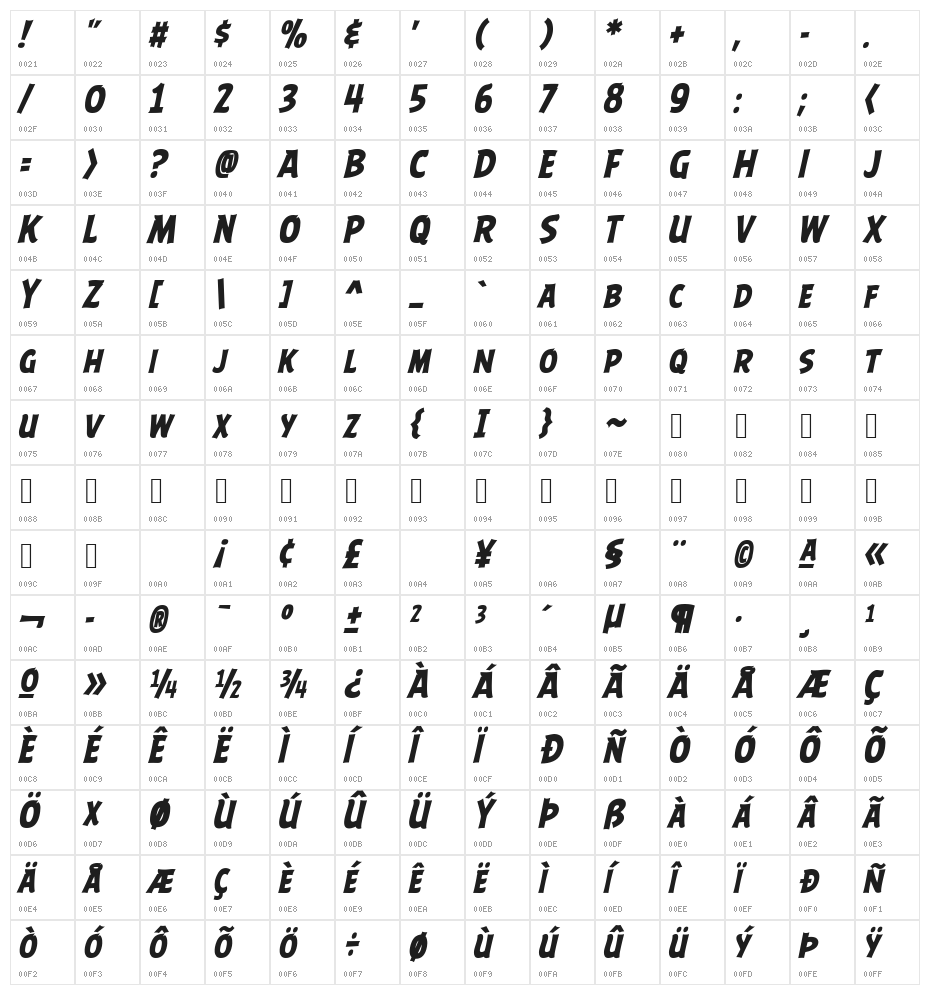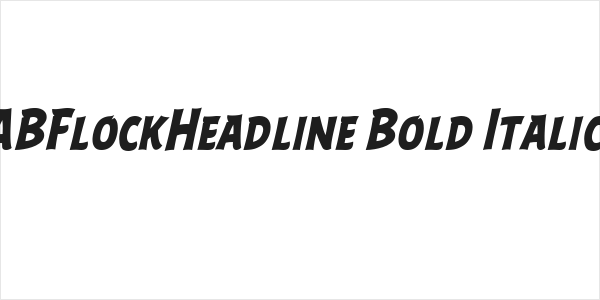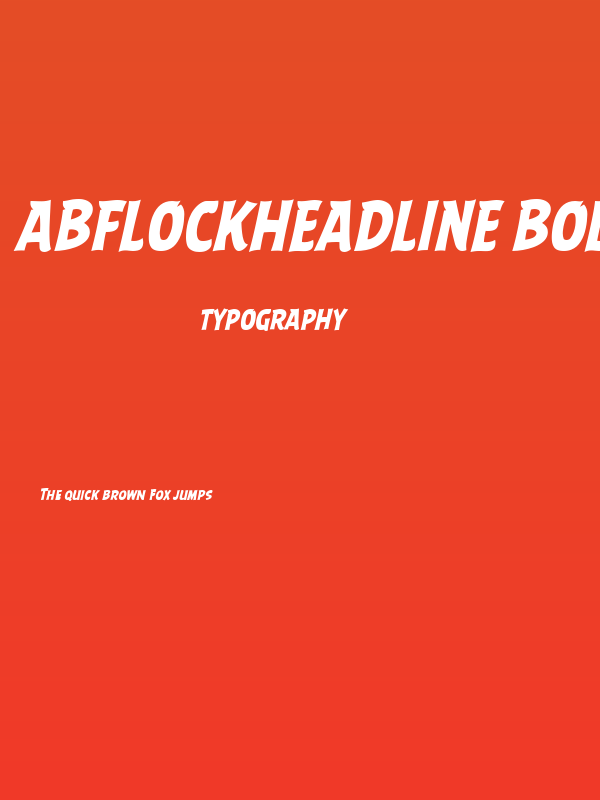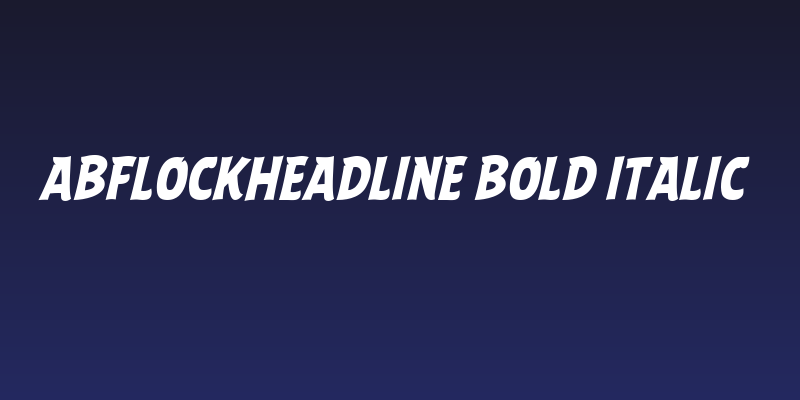
ABFlockHeadline Bold Italic Font
ABFlockHeadline Bold Italic Description
This font features a bold and italicized style with a strong, dynamic presence. The characters are slightly slanted, adding a sense of motion and energy. The strokes are thick and consistent, providing a robust and impactful appearance. The overall design is modern and eye-catching, making it suitable for attention-grabbing headlines and titles. The spacing between characters is tight, enhancing the compact and cohesive look of the text. The font includes a full set of uppercase and lowercase letters, numbers, and a variety of special characters, offering versatility for different design needs.
| Proposed Projects | Ideal for headlines, posters, branding materials, and advertising campaigns. |